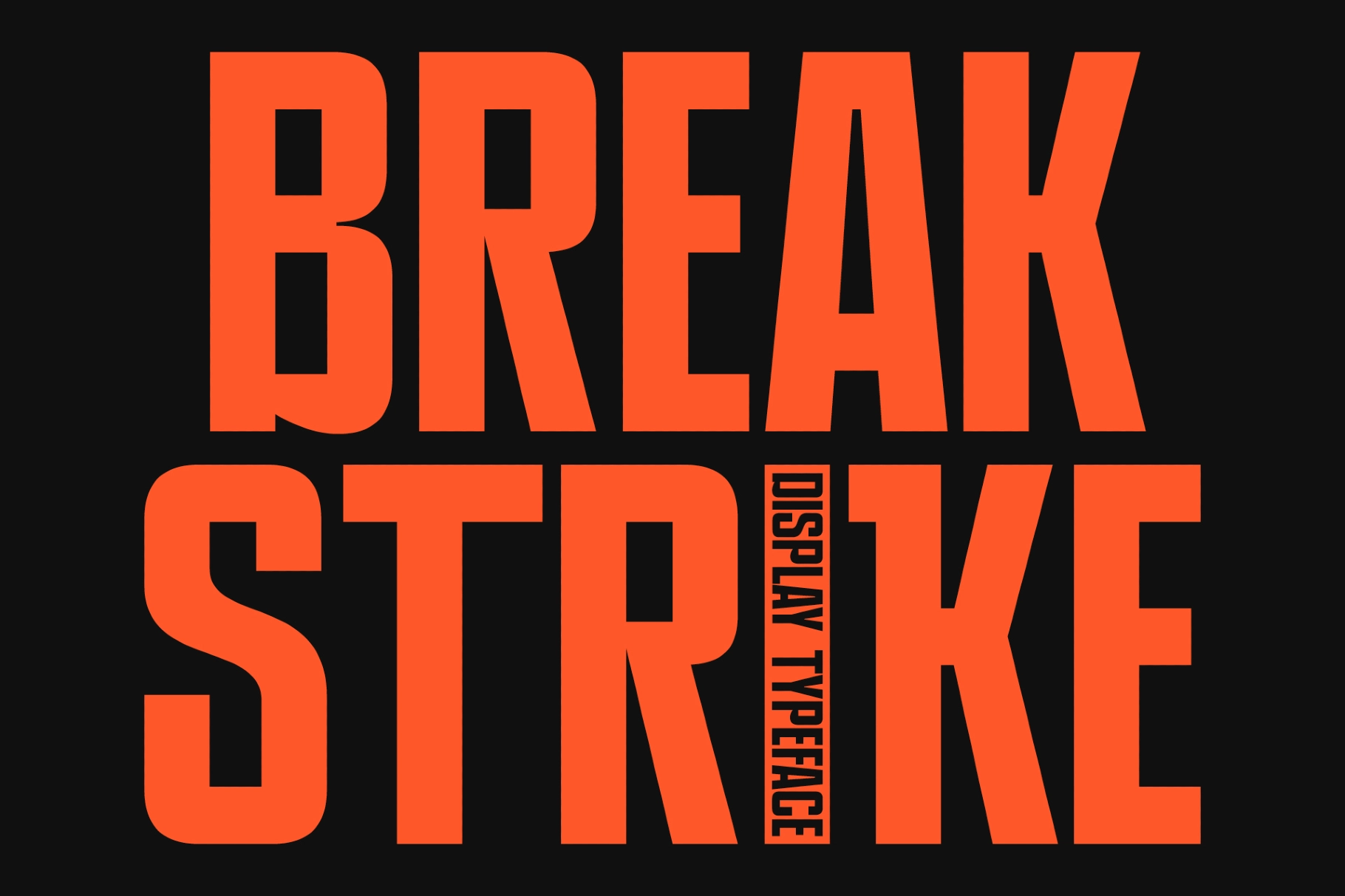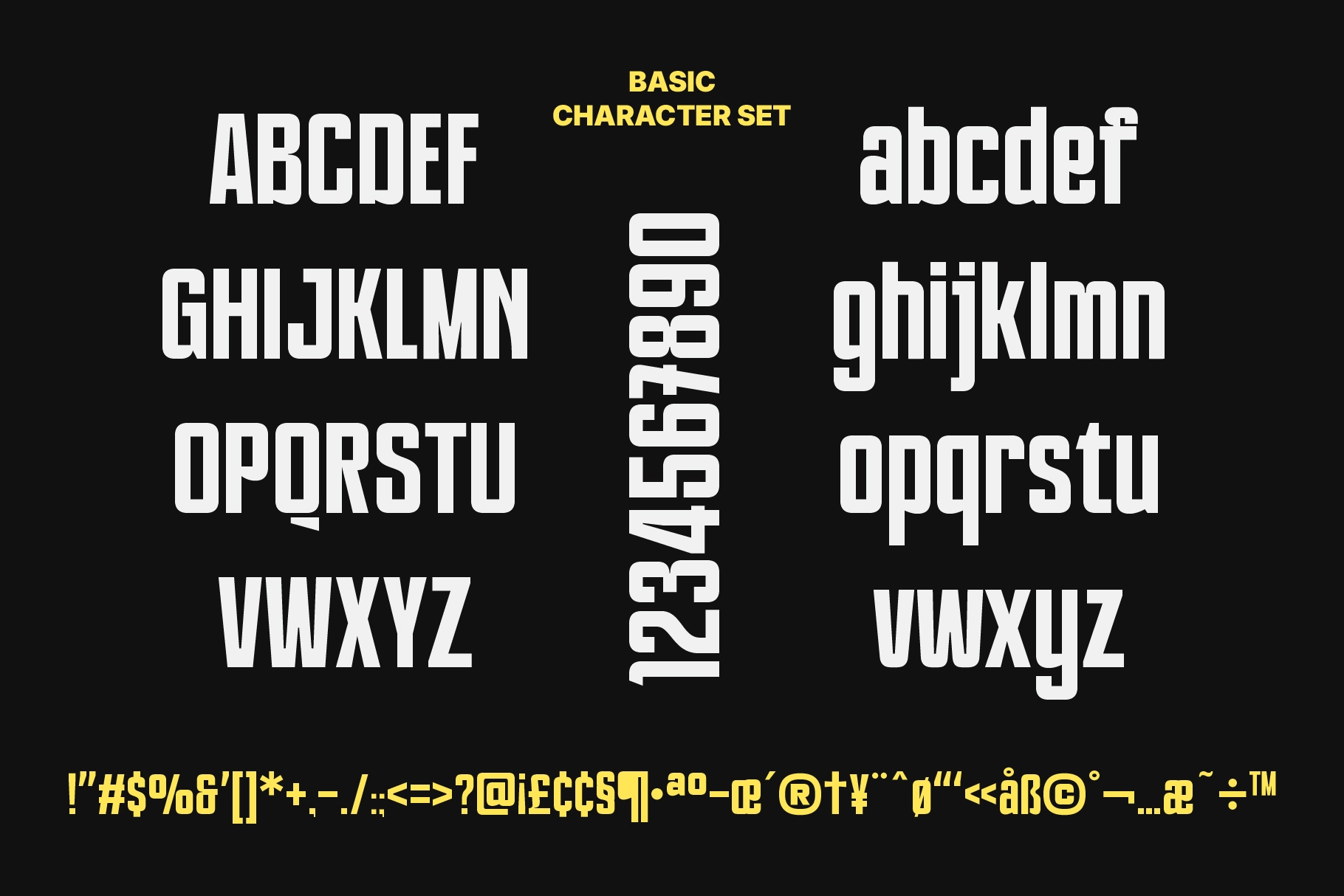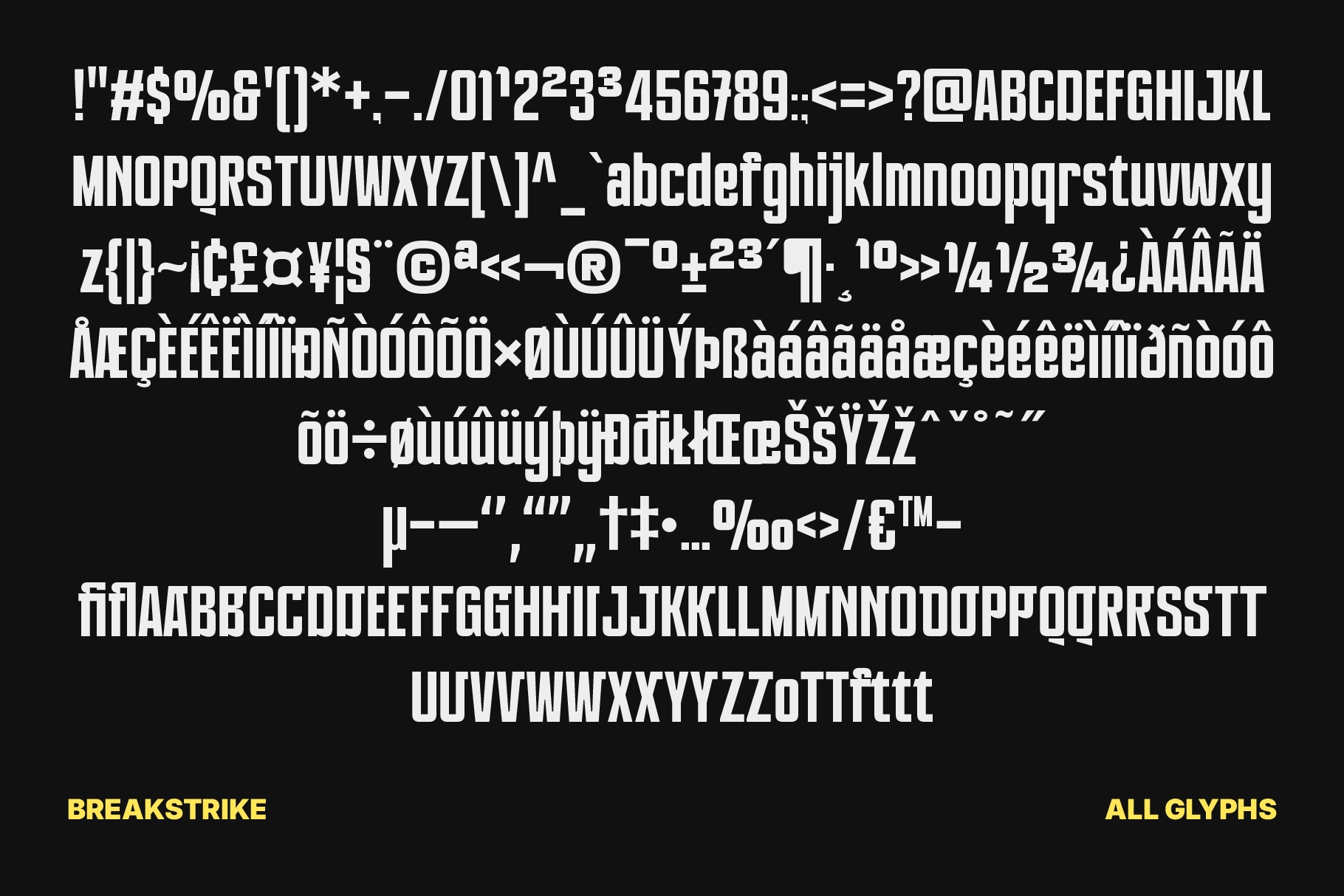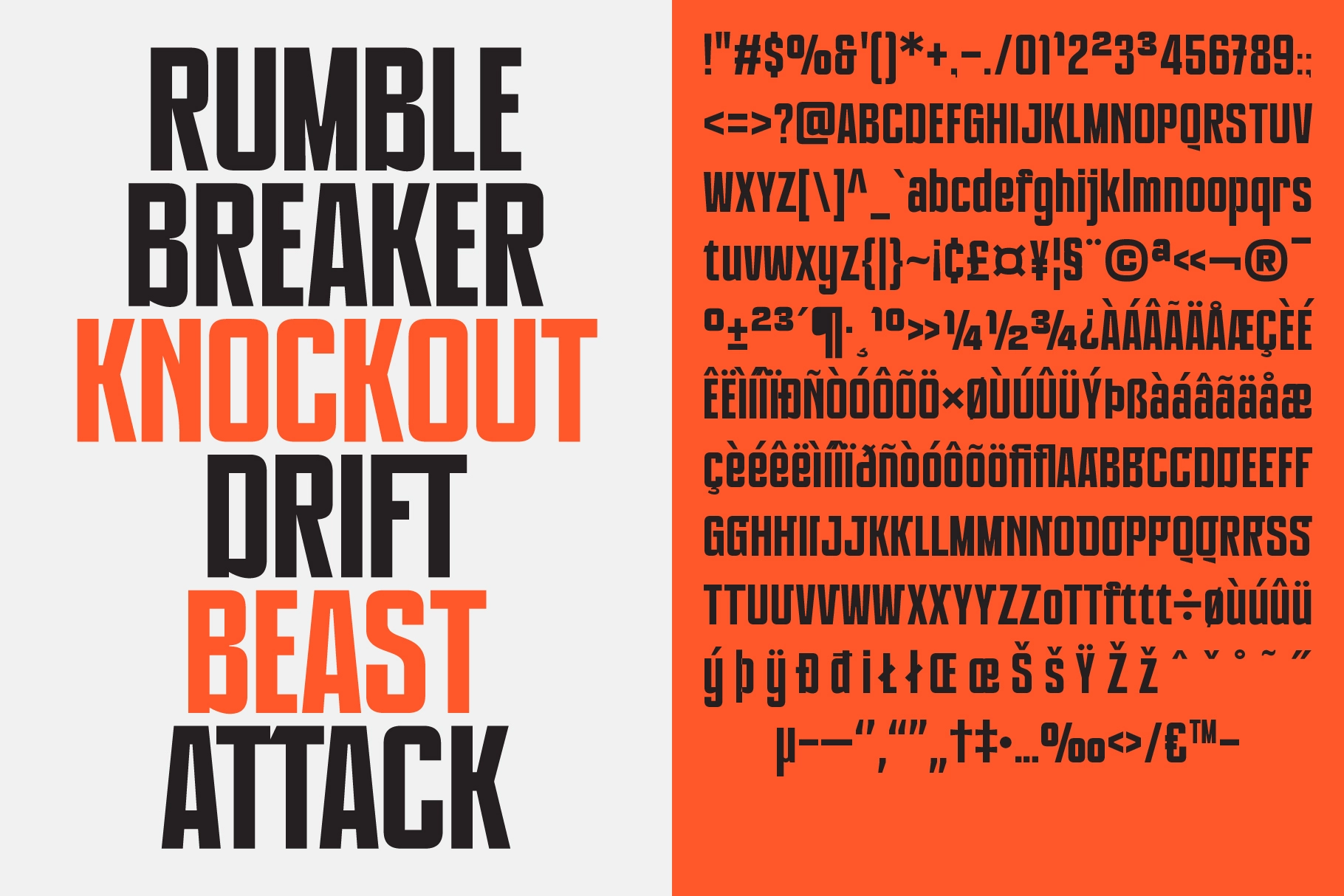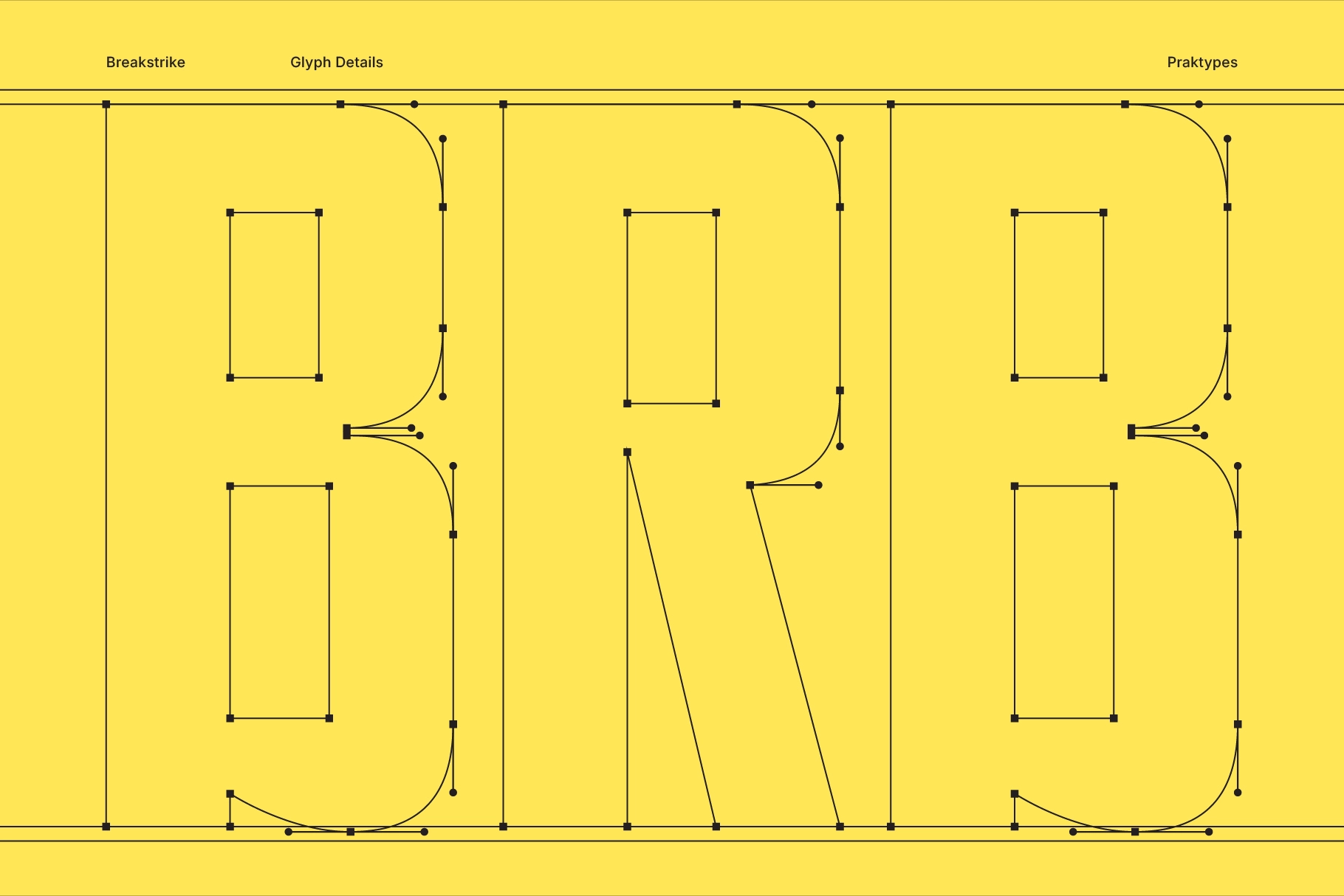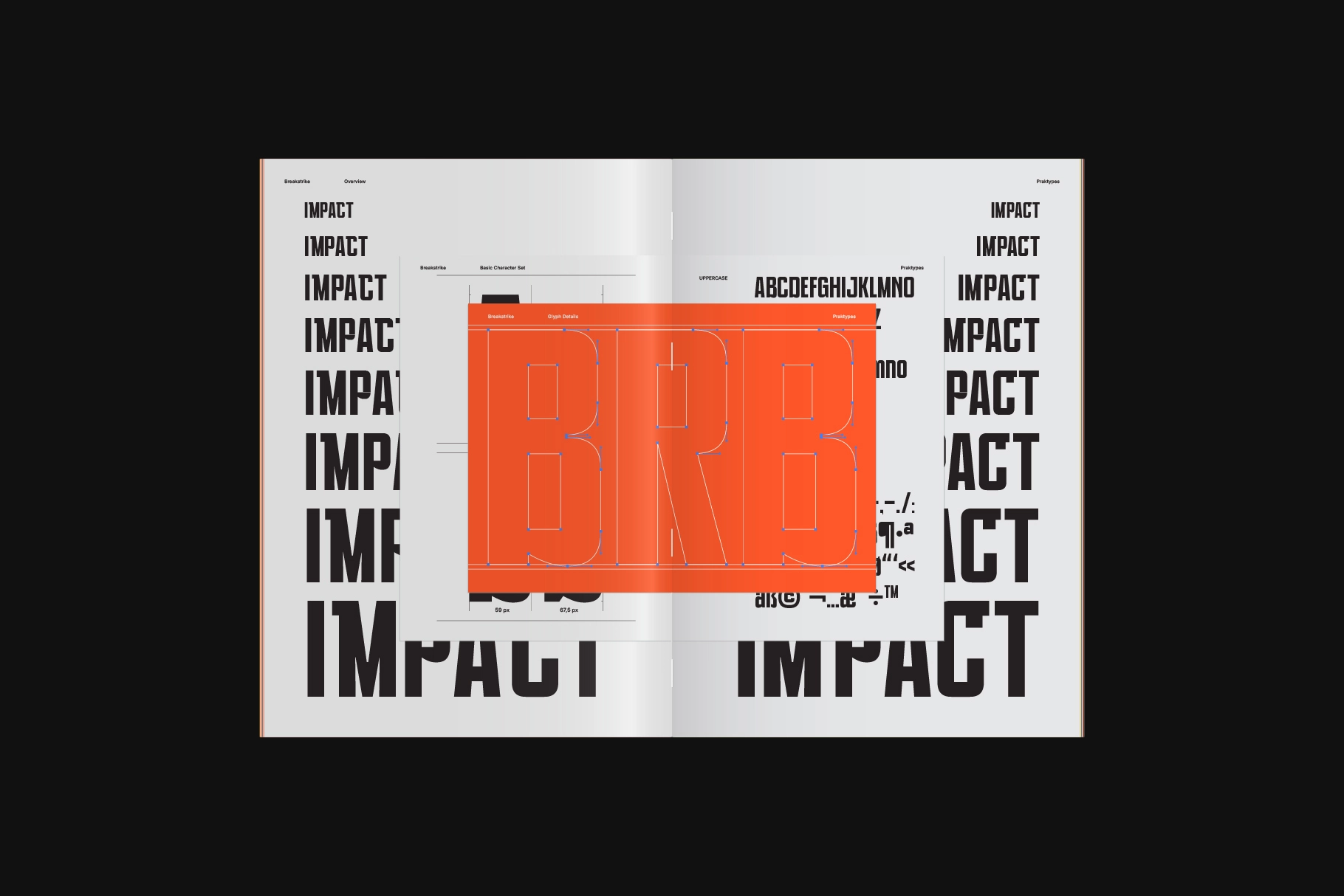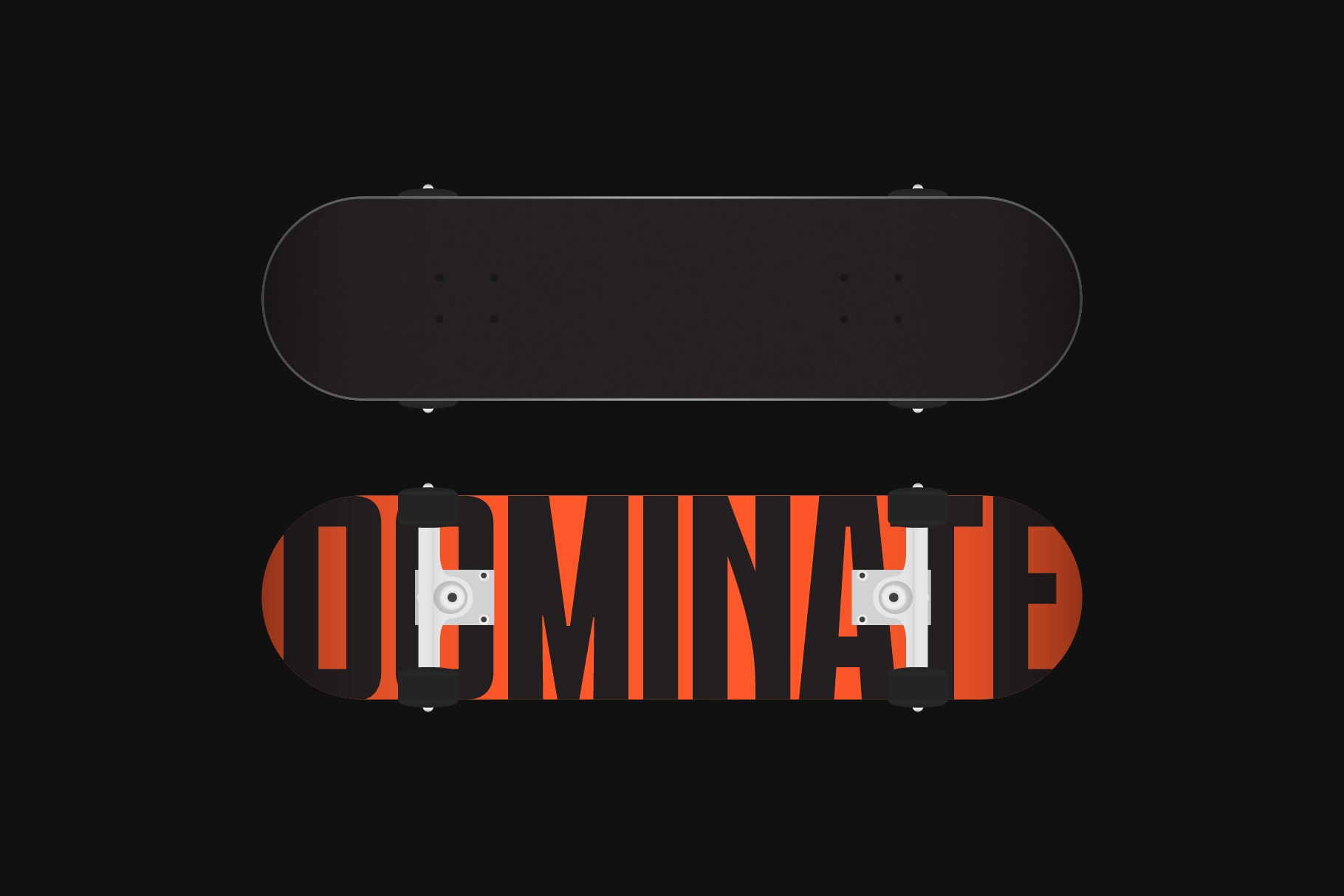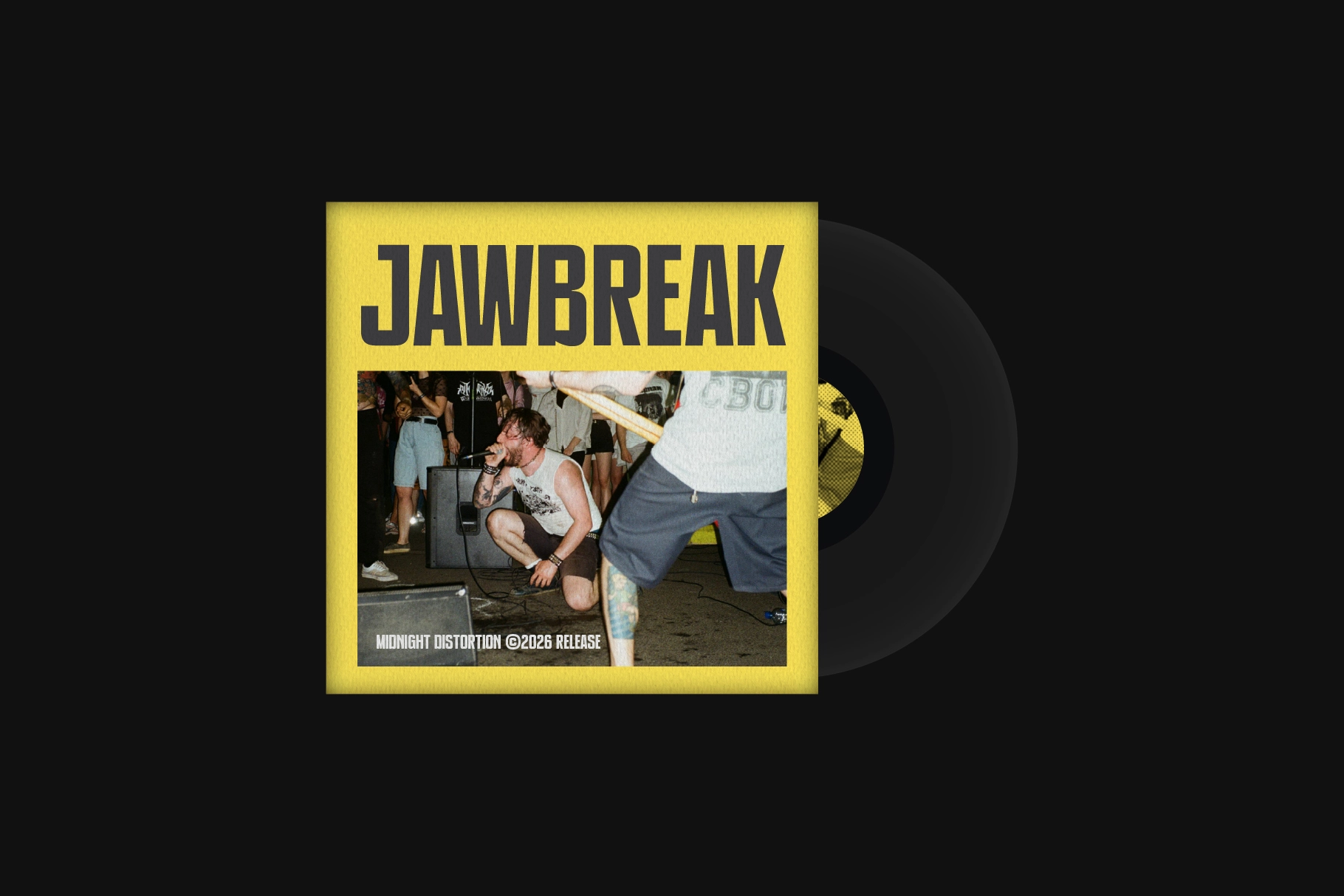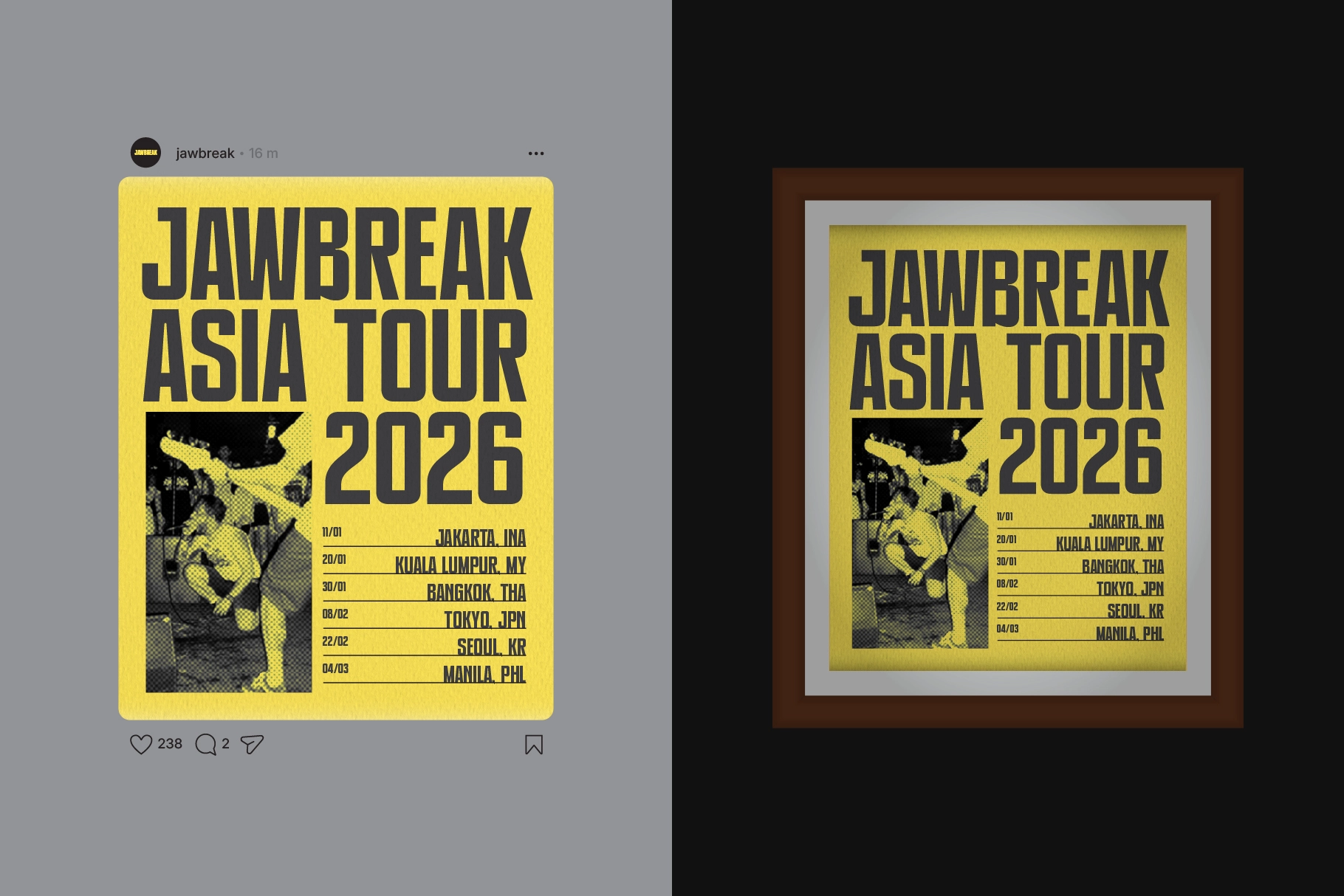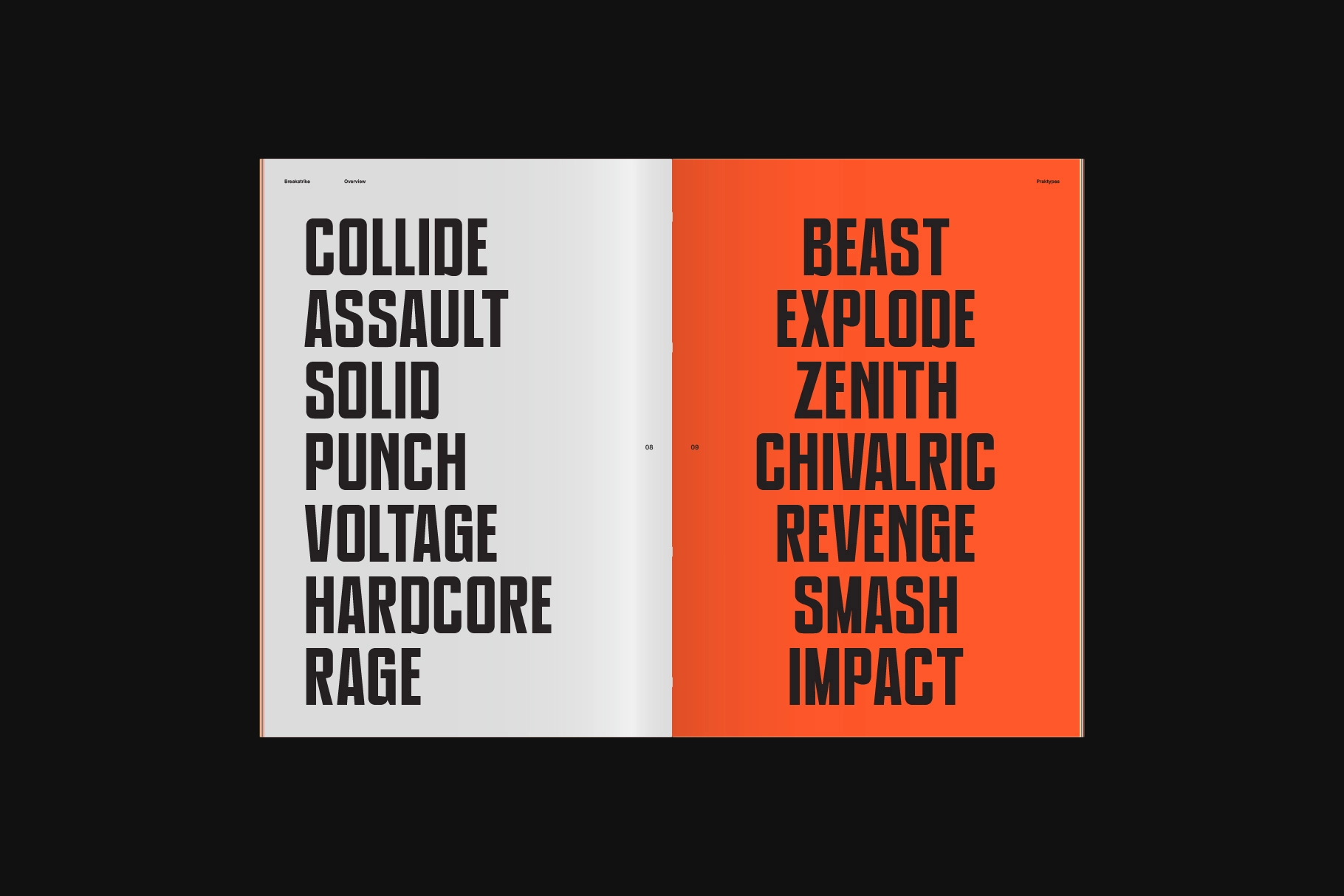
PRAK Breakstrike - Bold Condensed Display Font
PRAK BREAKSTRIKE
This condensed display font is loud, heavy, and confrontational, with tall packed forms and blunt industrial cuts. Its bold structure is made for oversized typography, giving posters, apparel, and campaign graphics a hard-edged voice with zero room for polite small talk.
Breakstrike works well for streetwear drops, punk gig posters, hardcore album covers, fight-night graphics, crime-themed titles, action branding, protest-style layouts, sports merch, festival banners, zines, packaging labels, and social media announcements. The compact width makes it easy to stack words, fill vertical space, and create dense typographic blocks that hit fast.
- Stylistic alternates
- Ligatures